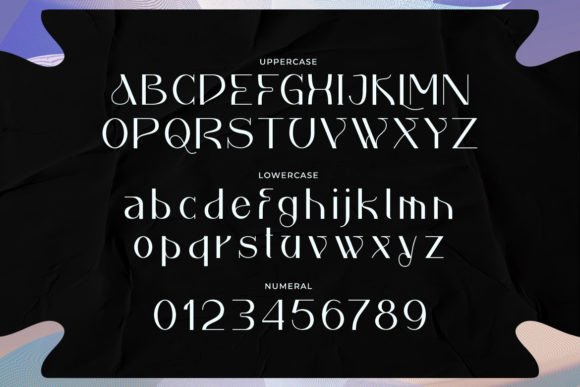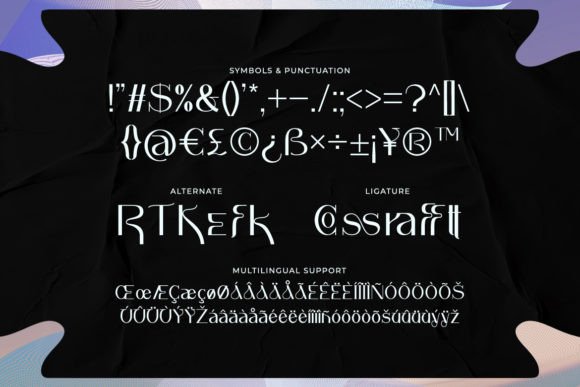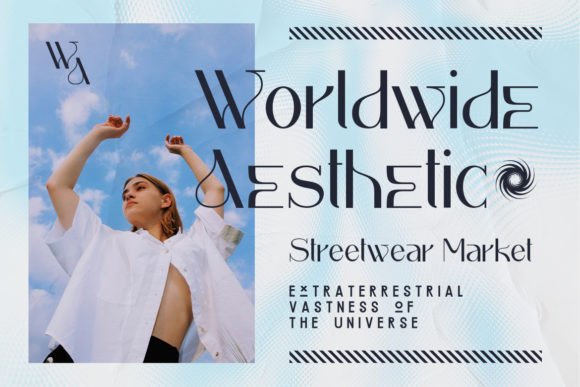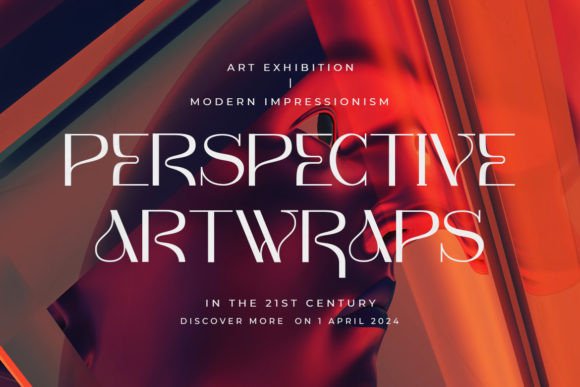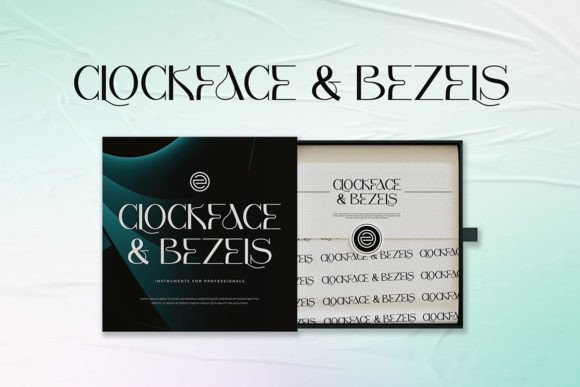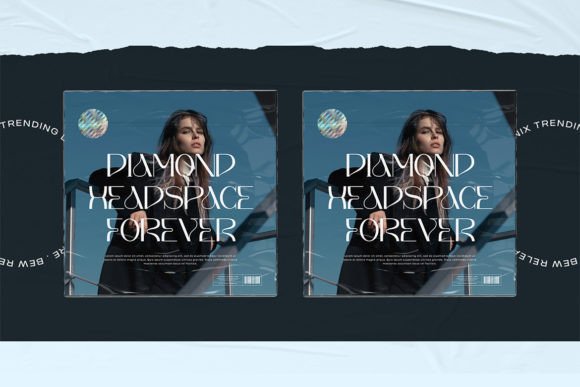
The Perfect Font for a Retro Revival
Have you ever been browsing through old photographs or movies and been struck by the nostalgic charm of a bygone era? Perhaps it was the way the light danced across the subject’s face, or the vibrant colors that seemed to leap off the screen. Whatever it was, it’s likely that the font used in those images played a big role in evoking that feeling of nostalgia. If you’re looking to add a touch of retro style to your designs, you’re in luck – the Anevass Font is here to help.
This liquid retro typeface is perfect for anyone looking to add a little extra personality to their work. With its unique liquid design, the Anevass Font is sure to make your text stand out from the crowd. Whether you’re a seasoned designer or just starting out, this versatile font is a valuable addition to any toolkit.
Anevass Font Key Features
- Unique Characteristics: This font features a unique blend of modern and traditional elements, with distinctive letterforms and flourishes that add a touch of elegance and sophistication.
Anevass Font Review
I recently had the chance to work with the Anevass font, and I must say it’s a unique and interesting addition to any design project. ✨
- Its modern and sleek aesthetic makes it perfect for creating a futuristic or high-tech vibe.
- The font’s clean lines and minimal ornamentation make it easy to read, even at smaller font sizes.
- The bold weight options provide excellent contrast and help to create a visually appealing layout.
- ⚠️ The font may be too minimalist for some projects, making it difficult to convey complex information or emotions.
- ⚠️ The font’s lack of bold variations in certain languages (e.g., Greek, Cyrillic) may limit its use in global design projects.
While the Anevass font has its limitations, I believe it’s a great choice for designers who want to create a modern, high-tech look. With some creative thinking and flexibility, the font can be used to create some truly stunning designs. If you’re looking for a font that’s out of the ordinary, the Anevass font is definitely worth considering.
Anevass font is ideal for creative projects that require a unique and modern touch. Use it for:
- Designing posters and flyers.
- Creating social media graphics.
- Developing branding materials.
- Adding a touch of elegance to presentations and reports.
Alternatives to Anevass Font
Monserrat Font is a modern sans-serif typeface designed by Julieta Ulanovsky. It is best used for digital interfaces, titles, and headings. Montserrat Font has a similar geometric feel to Anevass Font but with a more minimalist approach.
Comparison to Anevass Font: Montserrat Font is more geometric and has a cleaner design, whereas Anevass Font has a more rounded and playful feel.
Open Sans Font is a clean and modern sans-serif typeface designed by Steve Matteson. It is ideal for body text, titles, and headings in digital interfaces. Open Sans Font is more neutral and has a friendly feel, making it a great alternative to Anevass Font for everyday use.
Comparison to Anevass Font: Open Sans Font is more neutral and doesn’t have the same level of playfulness as Anevass Font, but it is still highly legible and versatile.
Lato Font is a modern sans-serif typeface designed by Łukasz Dziedzic. It is best used for titles, headings, and body text in digital interfaces. Lato Font has a similar feel to Anevass Font but with a more subtle and elegant design.